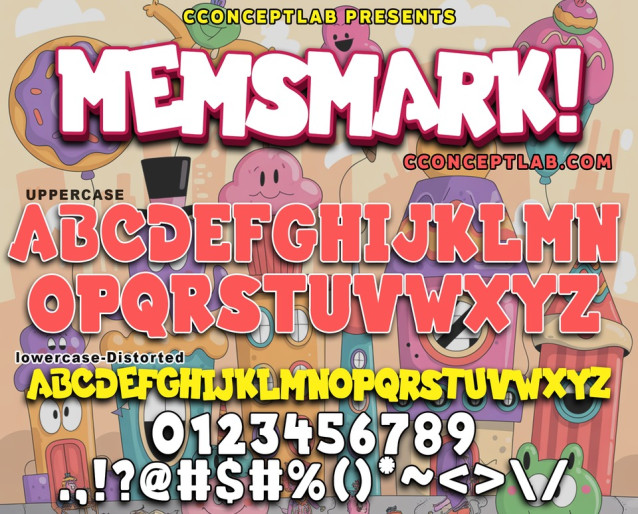
Memsmark! Font
Memsmark Font is a chunky, comic, and cartoon display font. With its neat and joyful personality, this font will enhance any project you wish to create!